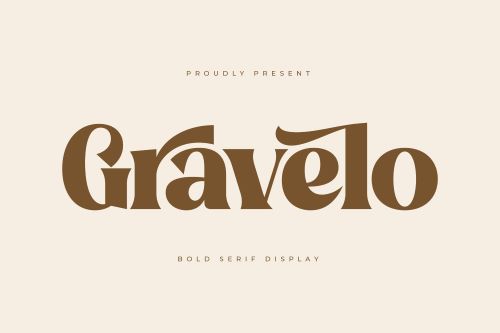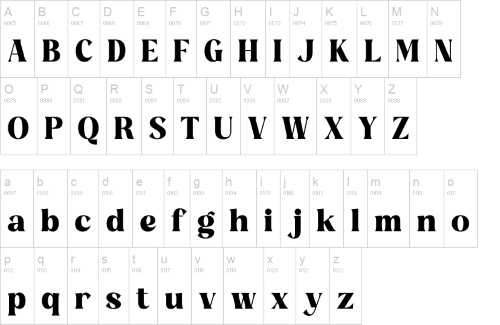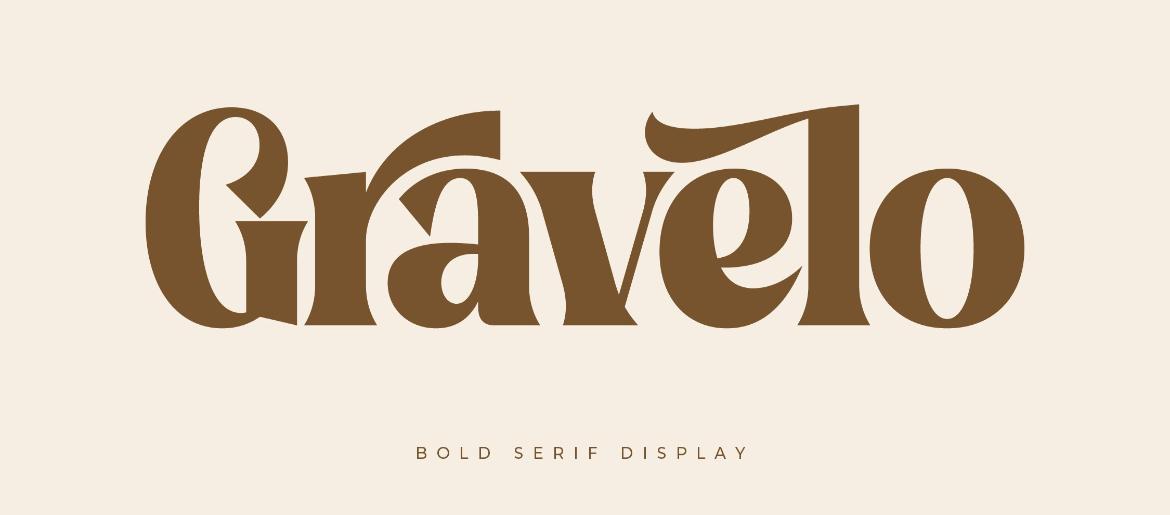
Gravelo Font
A luxury serif font designed for elegant and high-end creative work. Perfect for logos, branding, homeware designs, product packaging, mugs, quotes, posters, shopping bags, t-shirts, book covers, business cards, invitations, greeting cards, labels, photography, watermarks, and special events. This font adds a refined, premium touch to any project that calls for beauty, class, and sophistication.
➤ Font Name: Gravelo
➤ Designer: Letterena Studios
➤ Style: Serif